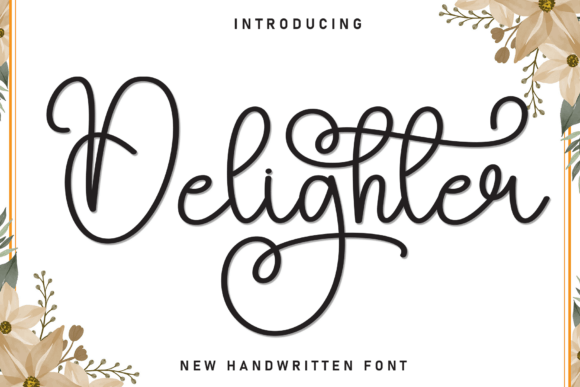
Have you ever stared at a blank canvas, wondering how to bring your design ideas to life? Maybe you’re struggling to convey the perfect tone in a wedding invitation or the perfect sentiment in a greeting card. Whatever the project, it’s that moment of creative uncertainty that often sparks the most innovative solutions.
Enter the Delighter Font, a charming and engaging handwritten display font that’s designed to add a touch of warmth and friendliness to your designs. Perfectly suited for wedding invitations, greeting cards, or any design that needs a splash of fun, this font is a valuable addition to any designer’s toolkit. With its cute aesthetic and playful spirit, the Delighter Font is sure to captivate your audience and bring your design ideas to life.
Delighter Font Key Features
- Font Family: Delighter Font offers 6 unique font styles, each with its own character and charm.
- Unique Characteristics: Delighter Font features a distinctive, playful design with rounded edges and organic shapes, perfect for adding a touch of whimsy to your designs.
Delighter Font Review
Overall, I have mixed feelings about the Delighter Font. It’s a fun, playful font that could be perfect for certain projects. ✨ The rounded edges and quirky shapes give it a charming, whimsical feel that’s hard to resist.
Some of the strengths of the Delighter Font include:
- Highly legible at larger sizes, making it suitable for headings and titles.
- Versatile and can be used in a variety of contexts, from children’s books to advertising campaigns.
- Easy to customize and pair with other fonts.
However, I do have a few concerns about the Delighter Font: ⚠️ The font may appear too childish or immature for more serious projects. Additionally, the irregular shapes and lines can make it difficult to read at smaller sizes.
Overall, I think the Delighter Font is a great option for projects that require a lighthearted, playful feel. However, it may not be the best choice for more formal or professional projects.
Delighter Font is ideal for:
- Creative projects, such as infographics, posters, and flyers.
- Branding and marketing materials, such as logos, business cards, and brochures.
- Presentations and documents, such as slides, reports, and newsletters.